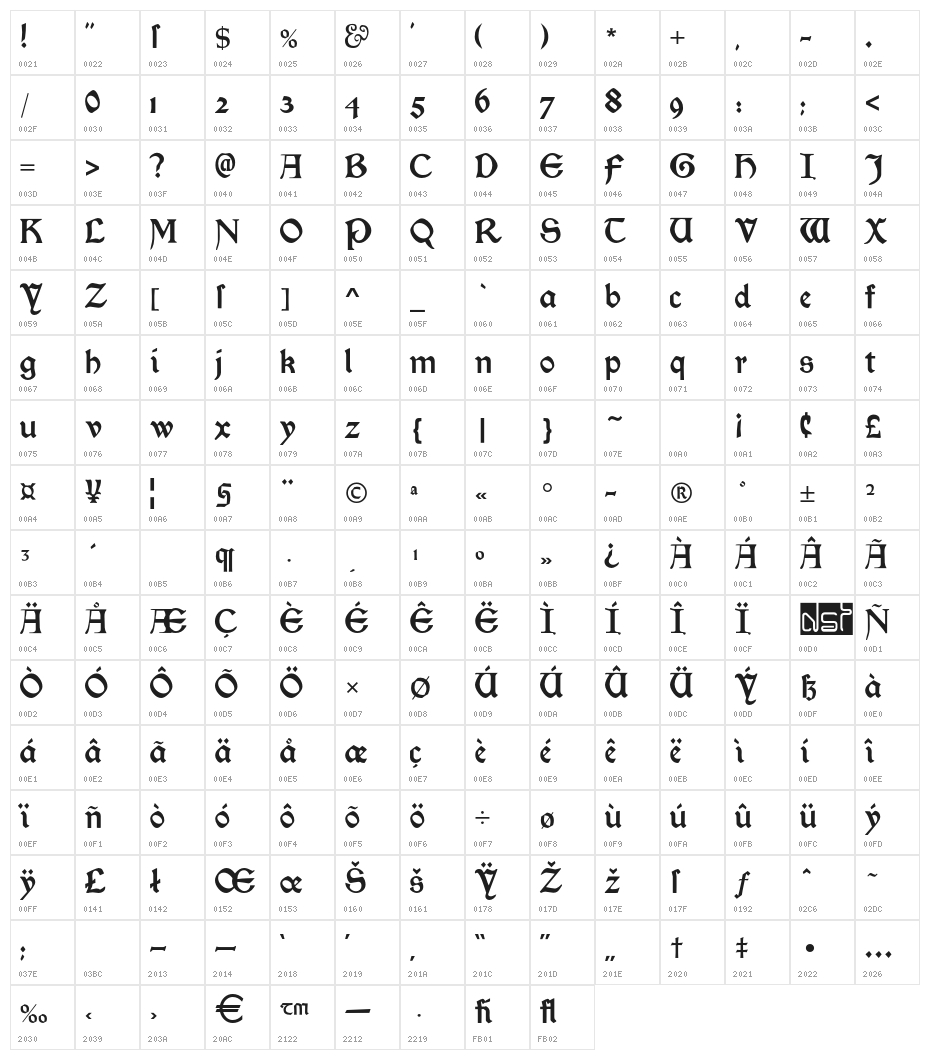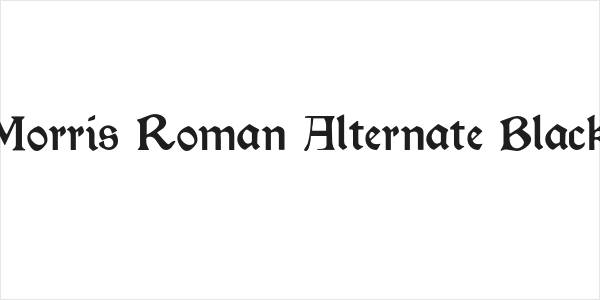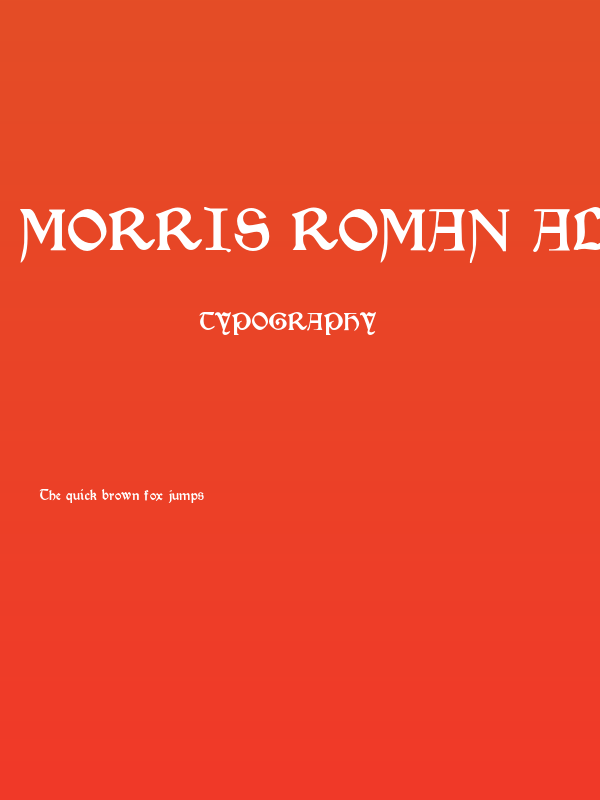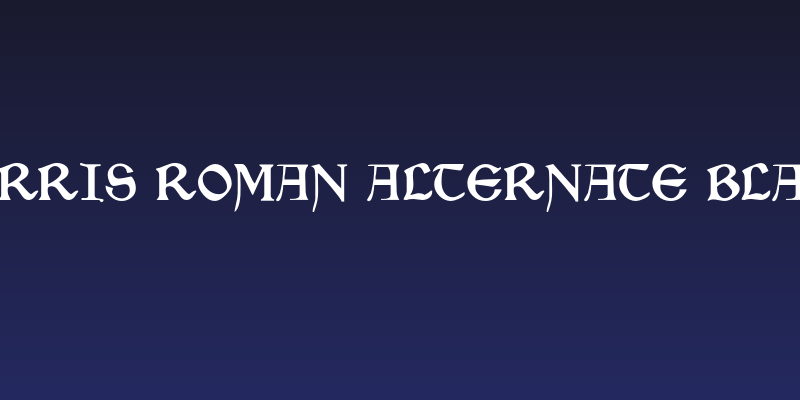
Morris Roman Alternate Black Font
Morris Roman Alternate Black Description
This font features a bold and striking design with a medieval flair, characterized by its sharp, angular serifs and unique letterforms. The uppercase letters exhibit a strong presence with intricate details, while the lowercase letters maintain a consistent style that complements the overall aesthetic. The numerals are distinct and easily readable, adding to the font's versatility. Special characters are designed with the same attention to detail, making them suitable for various applications. The font's boldness and decorative elements make it ideal for projects that require a touch of elegance and historical charm.
| Use Case | Headlines, Logos, Decorative text |
| Proposed Projects | Ideal for historical-themed designs, book covers, posters, and branding that requires a classic and bold appearance. |